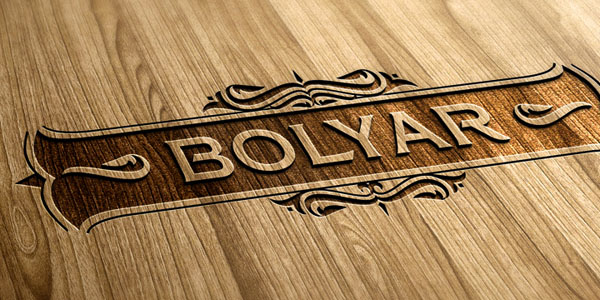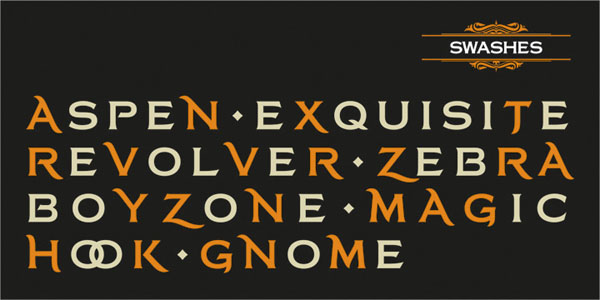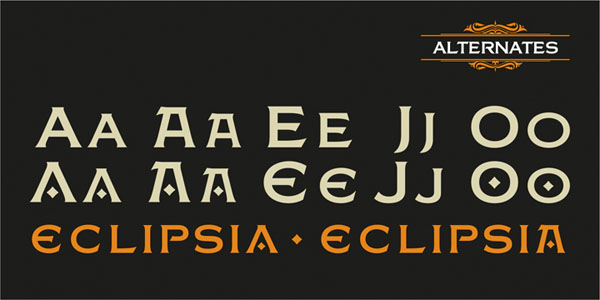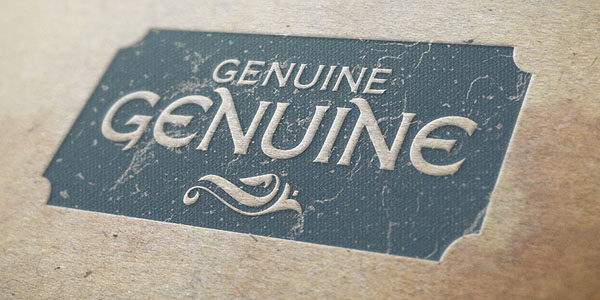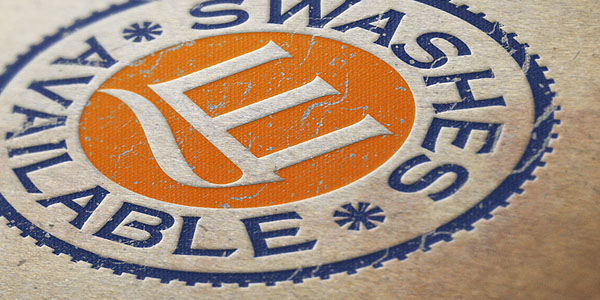
FM Bolyar – Font Family.
FM Bolyar is a royal, majestic and elegant typeface developed by the font designers Jordan Jelev and Vassil Kateliev (Pusblisher: The Fontmaker). The font family includes a wide range of alternates, swashes, ligatures and ornaments. FM Bolyar is the perfect choice for use in elegant headlines or logos.